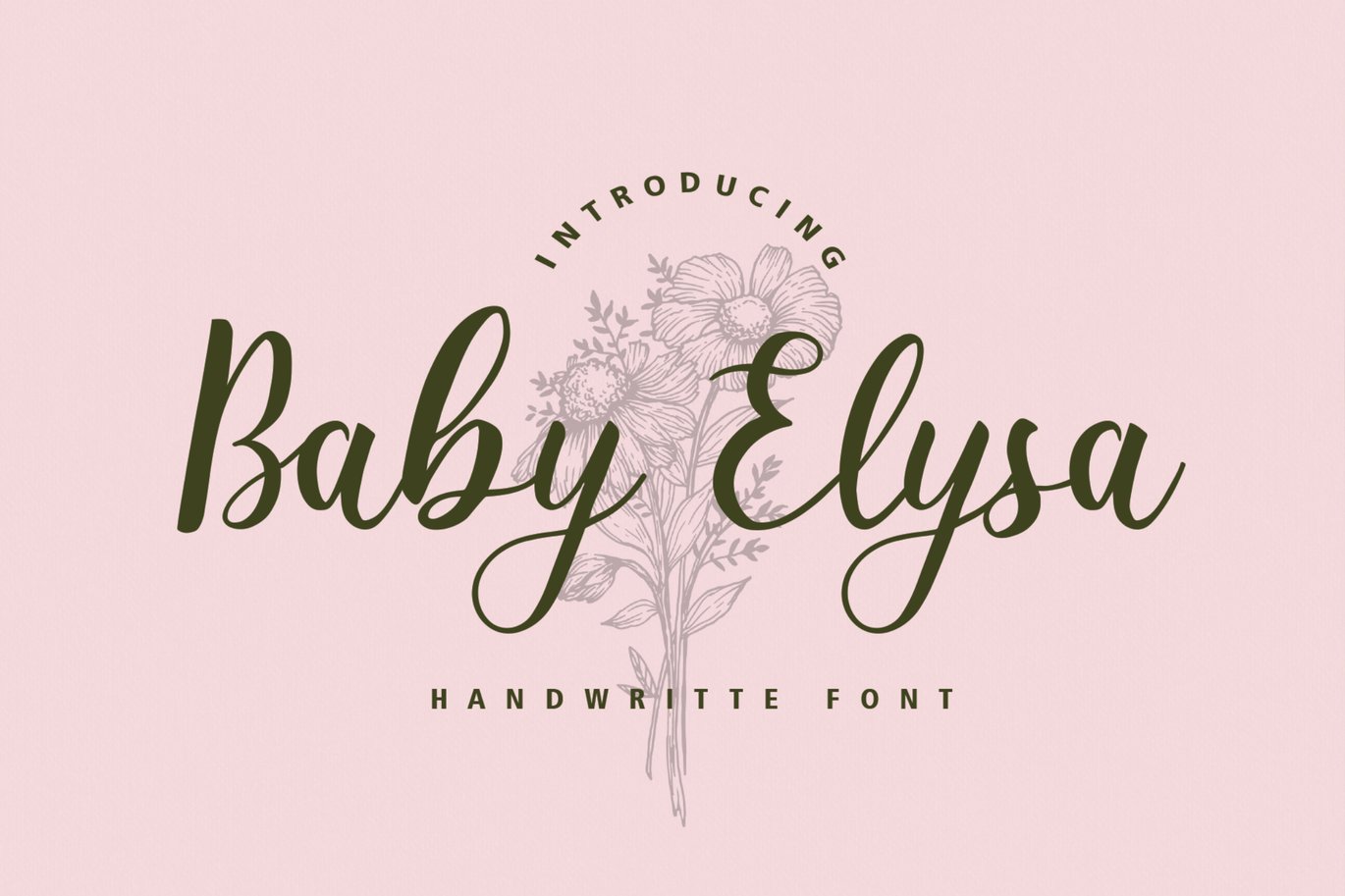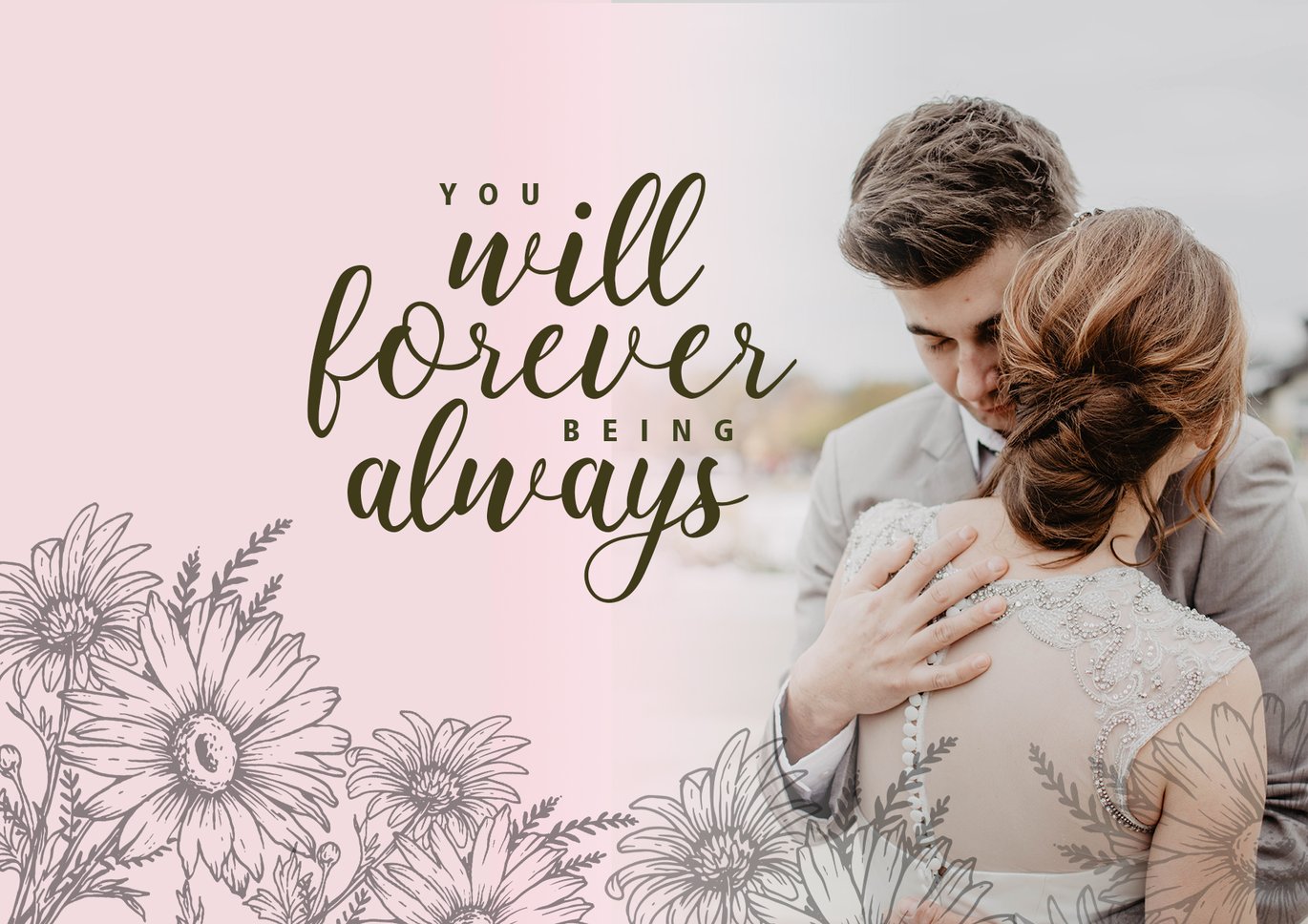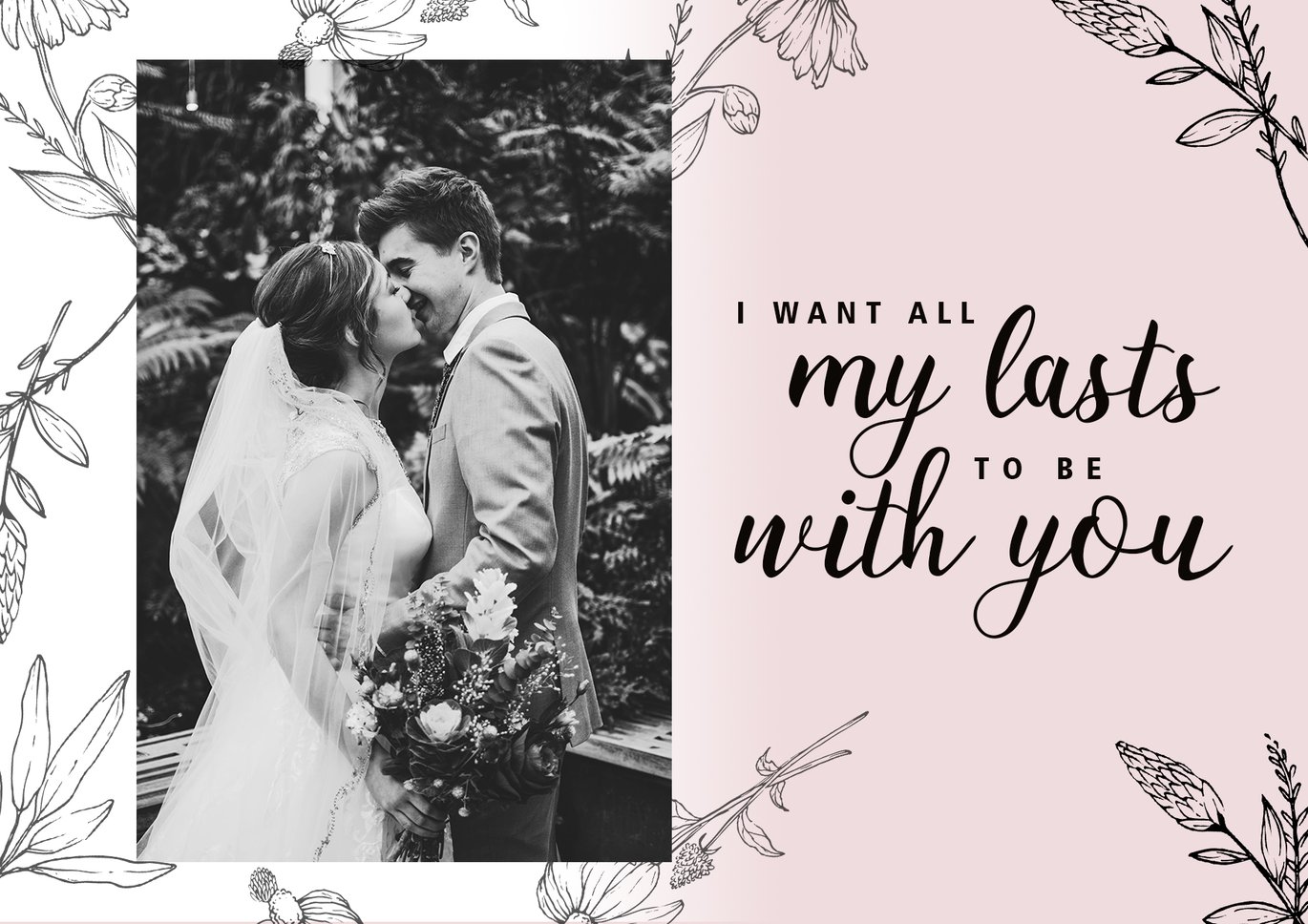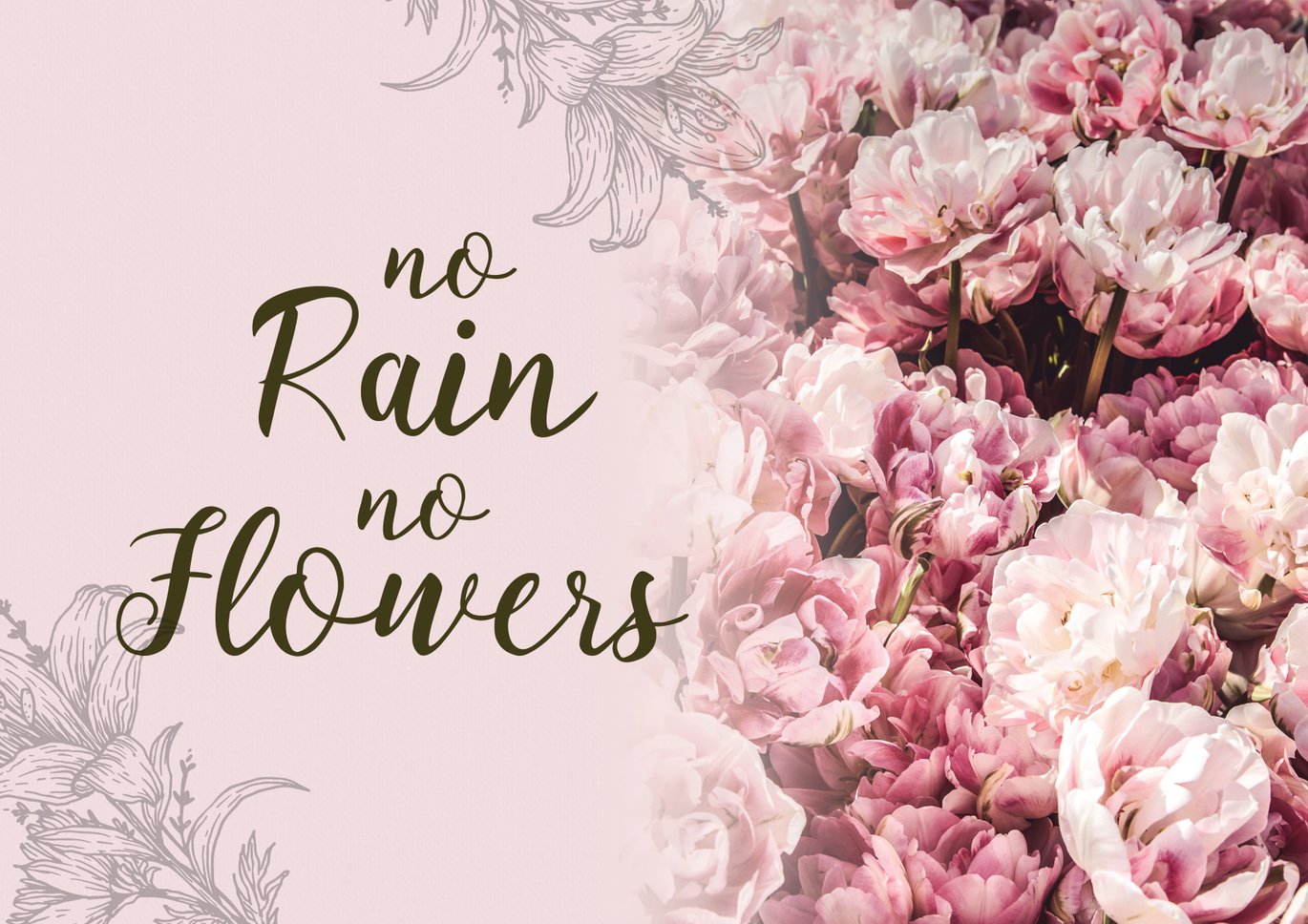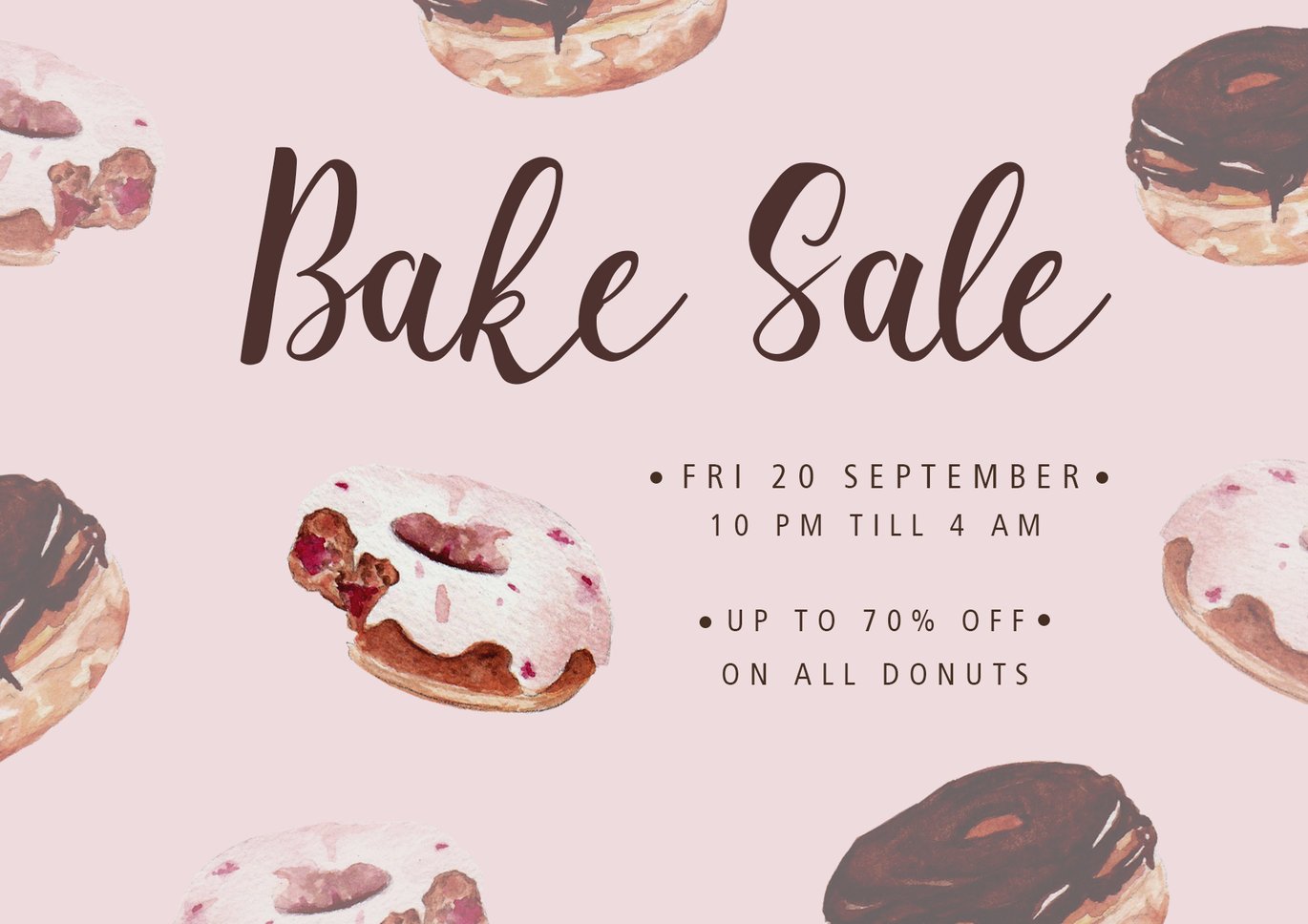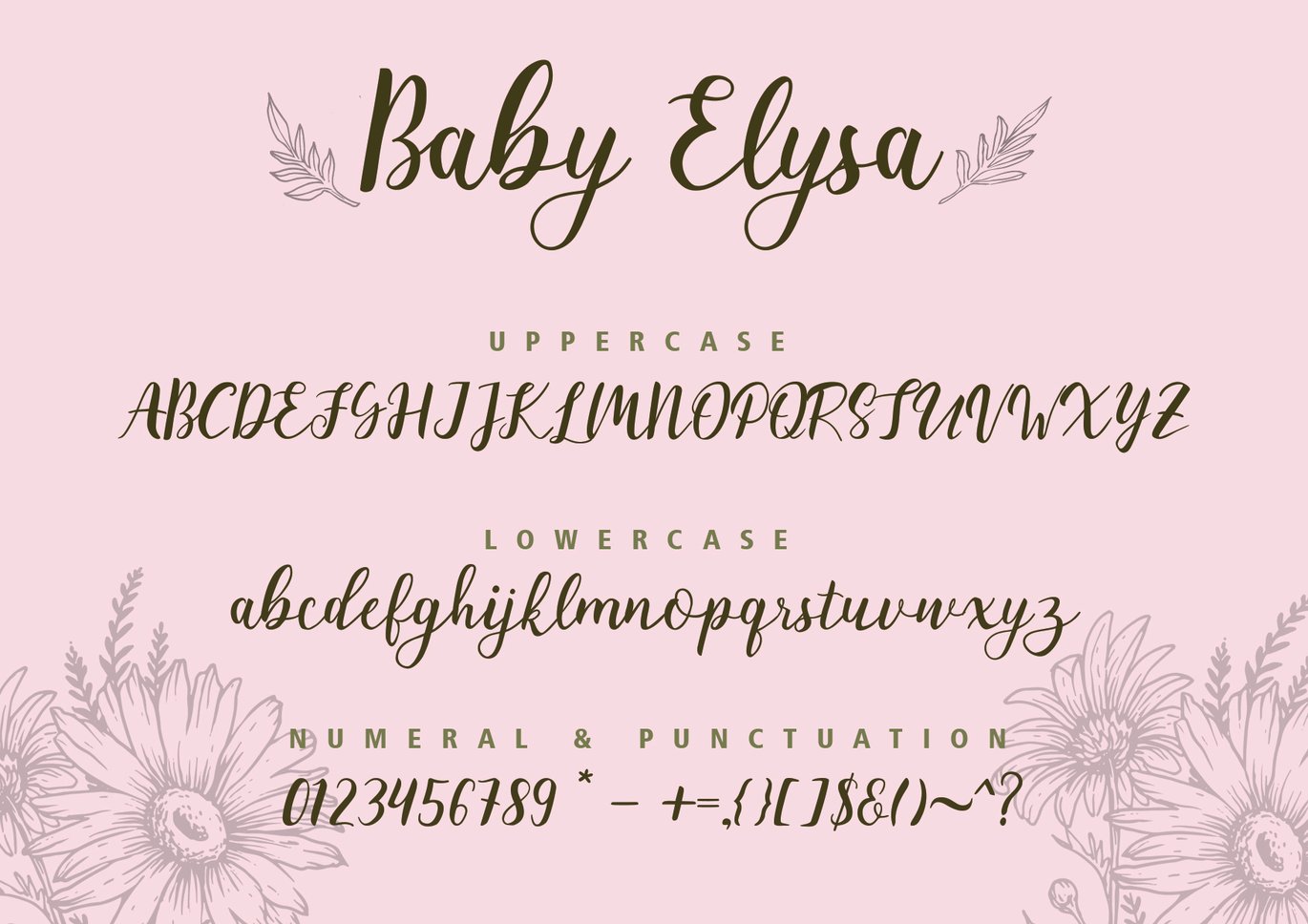
Baby Elysa Wedding Font
Baby Elysa – Wedding Brush Calligraphy Script Font.
The unique flow and easy calligraphy style makes it perfect for blogging, social media, branding, wedding invites, cards or simply use it in your next design project. It comes with ligatures and 10 catchwords. You can combine it to make a perfect typography design.